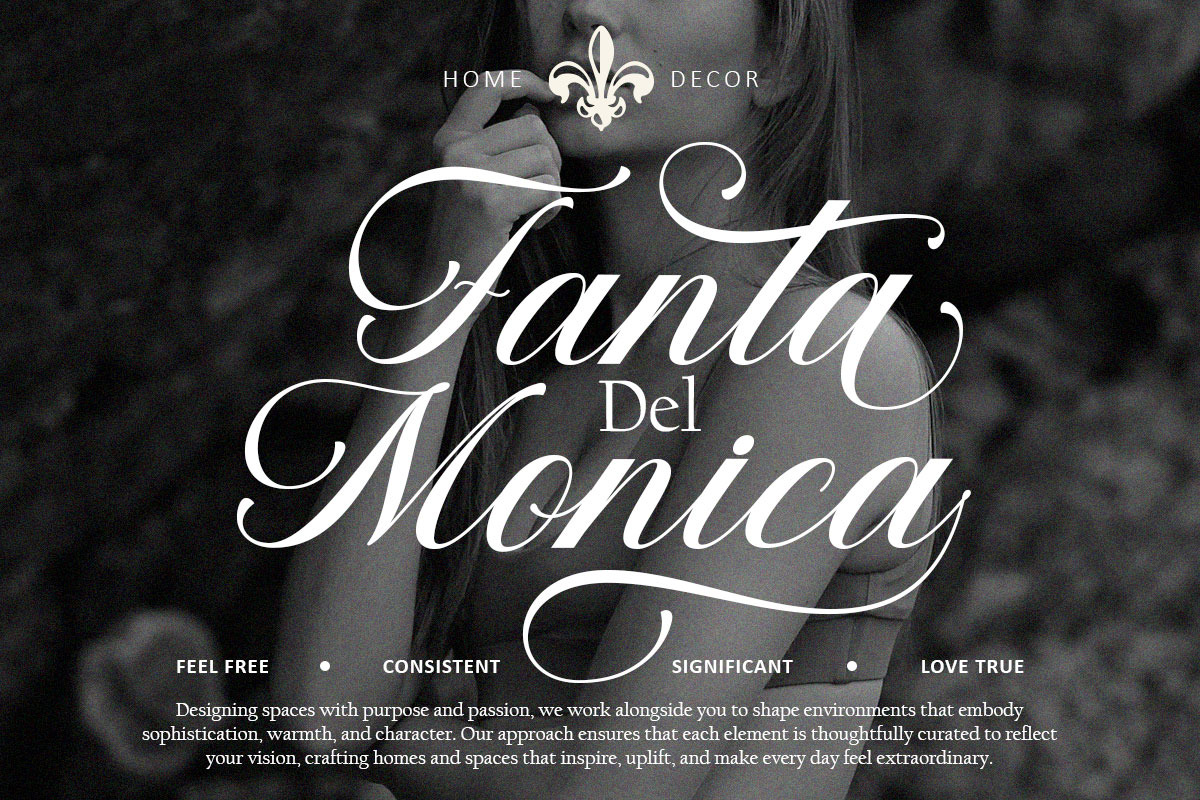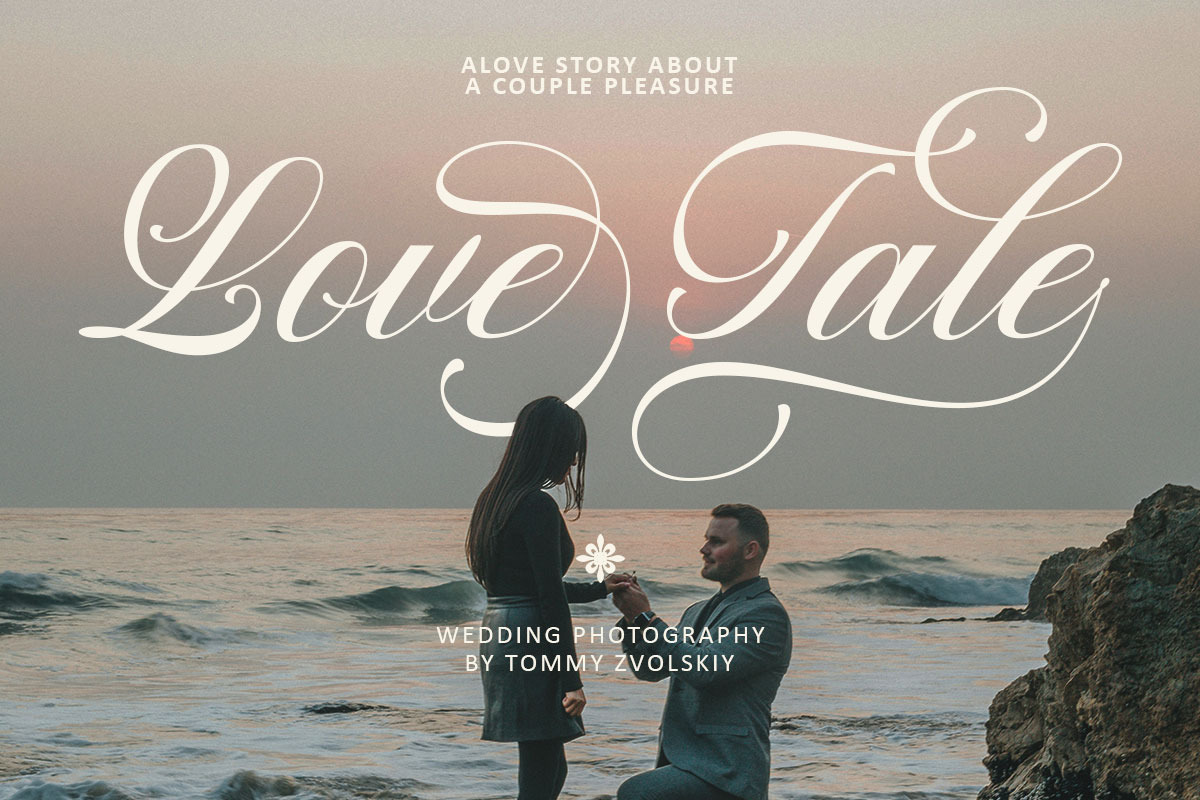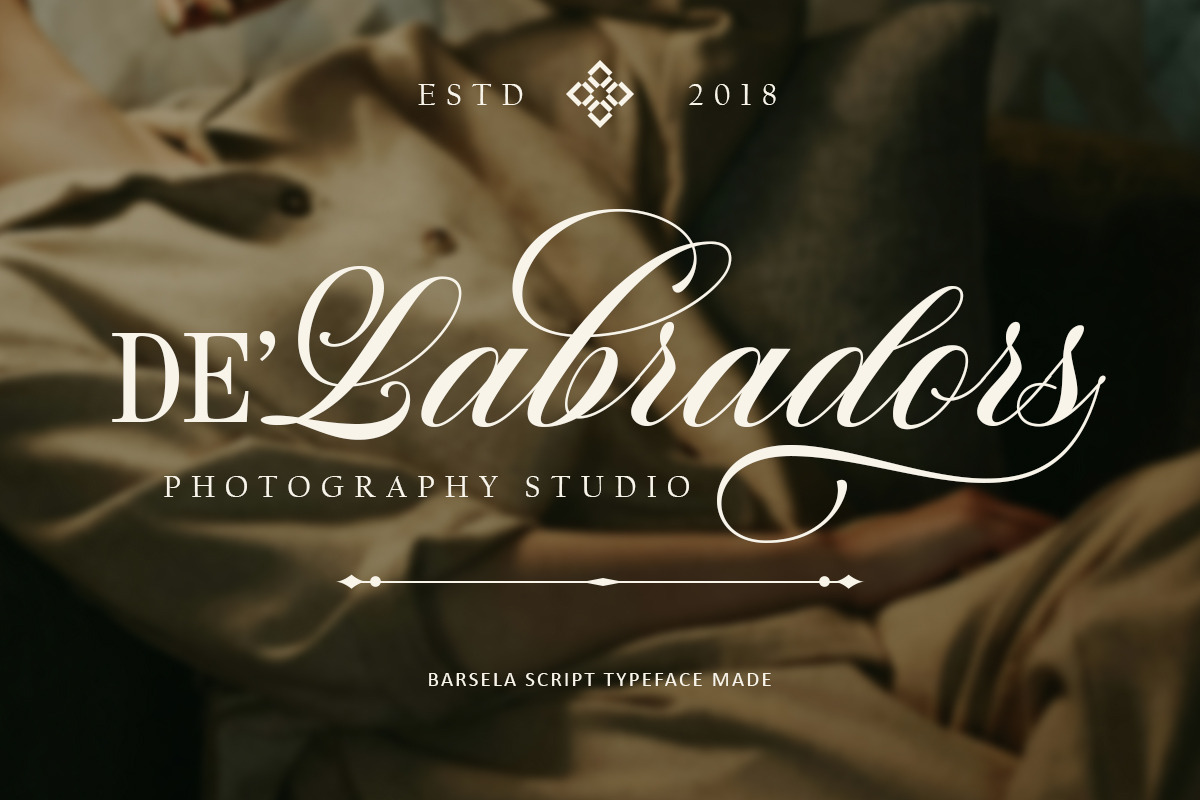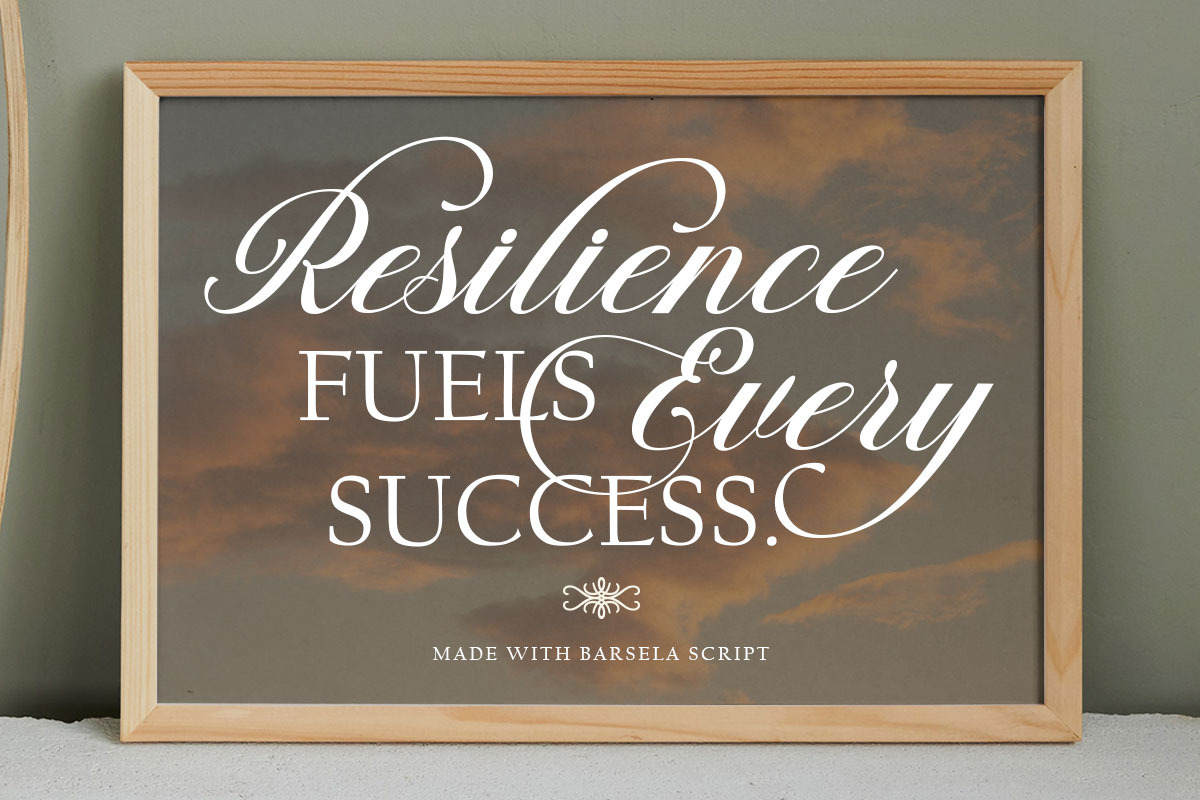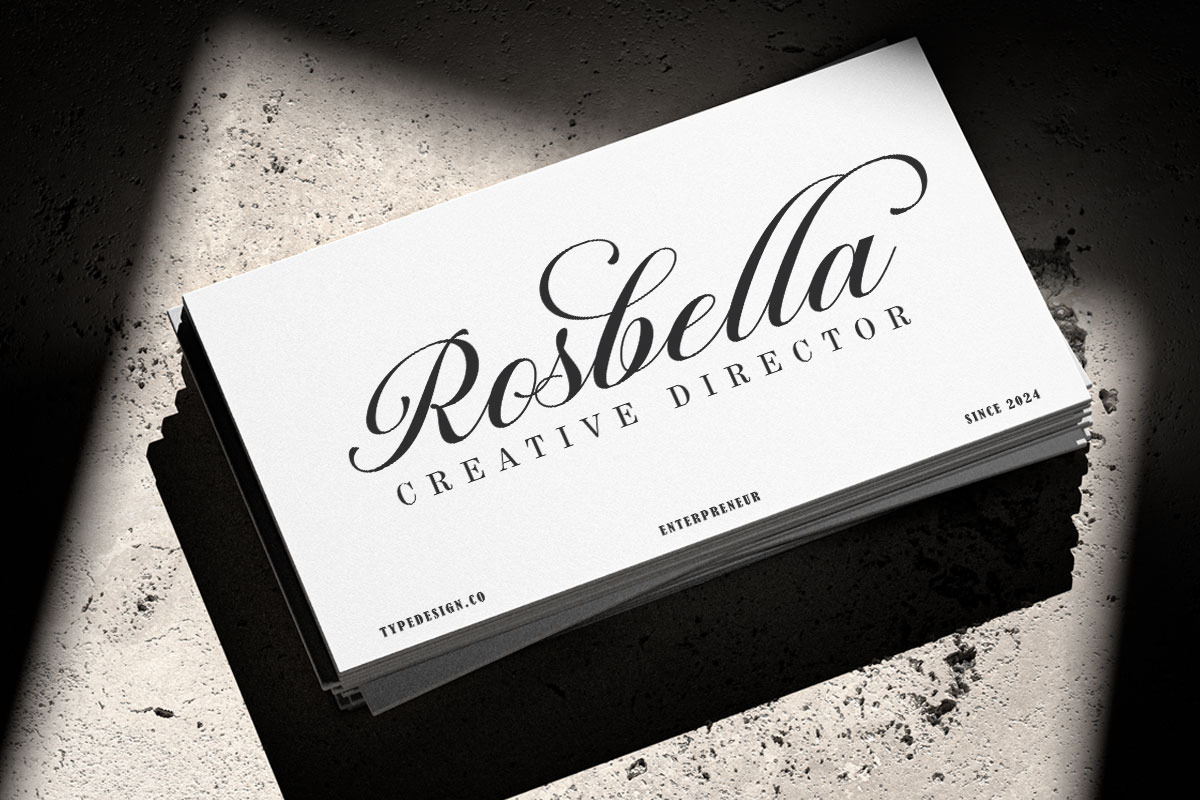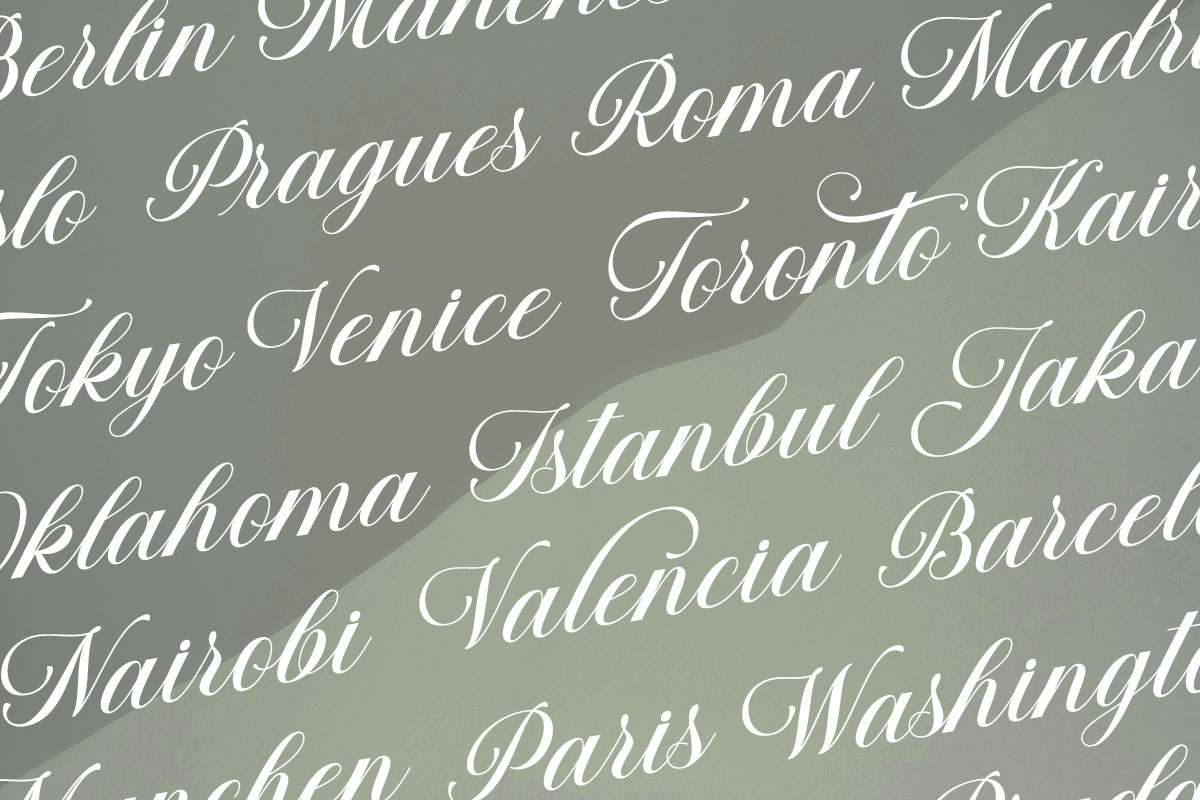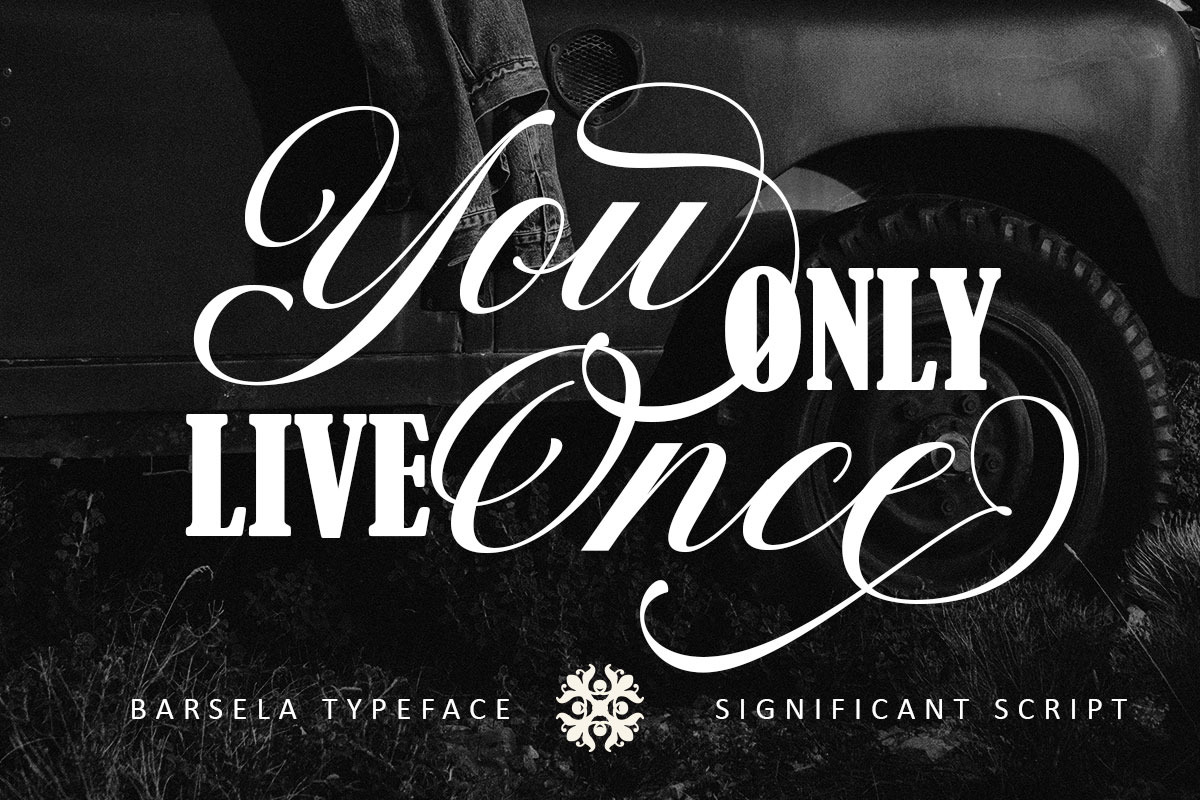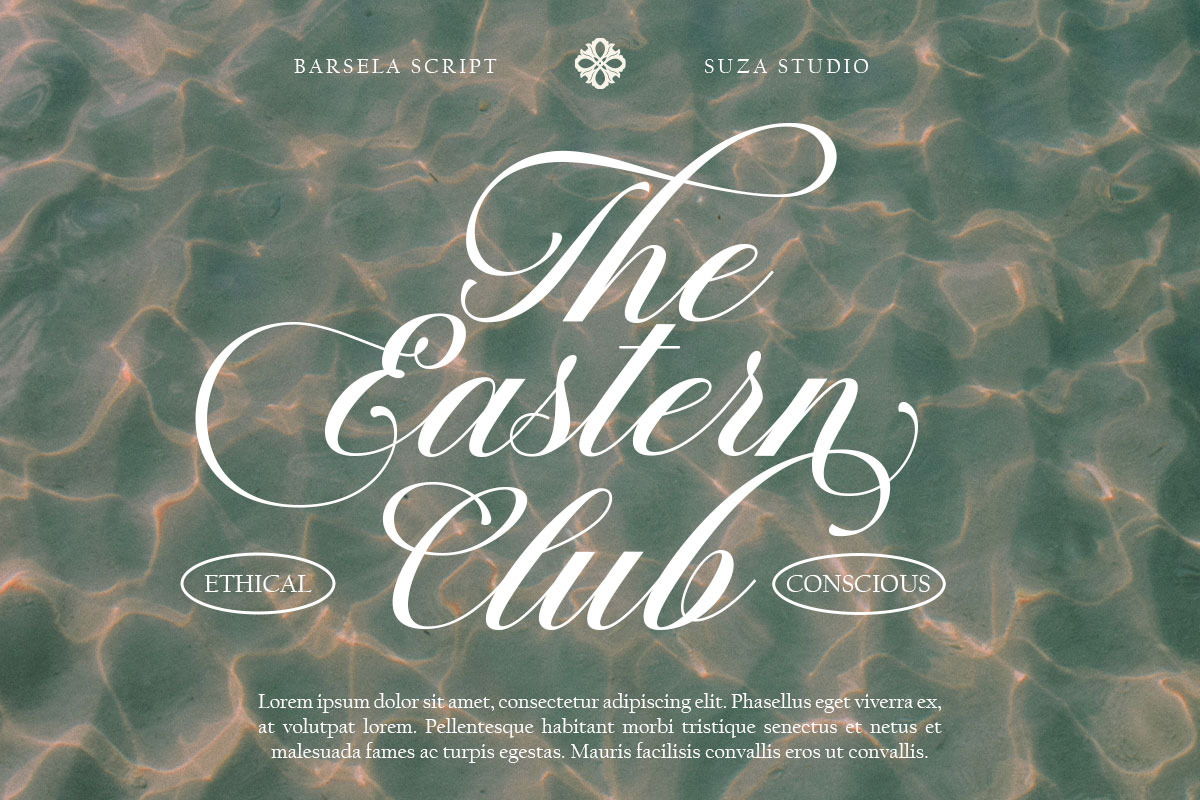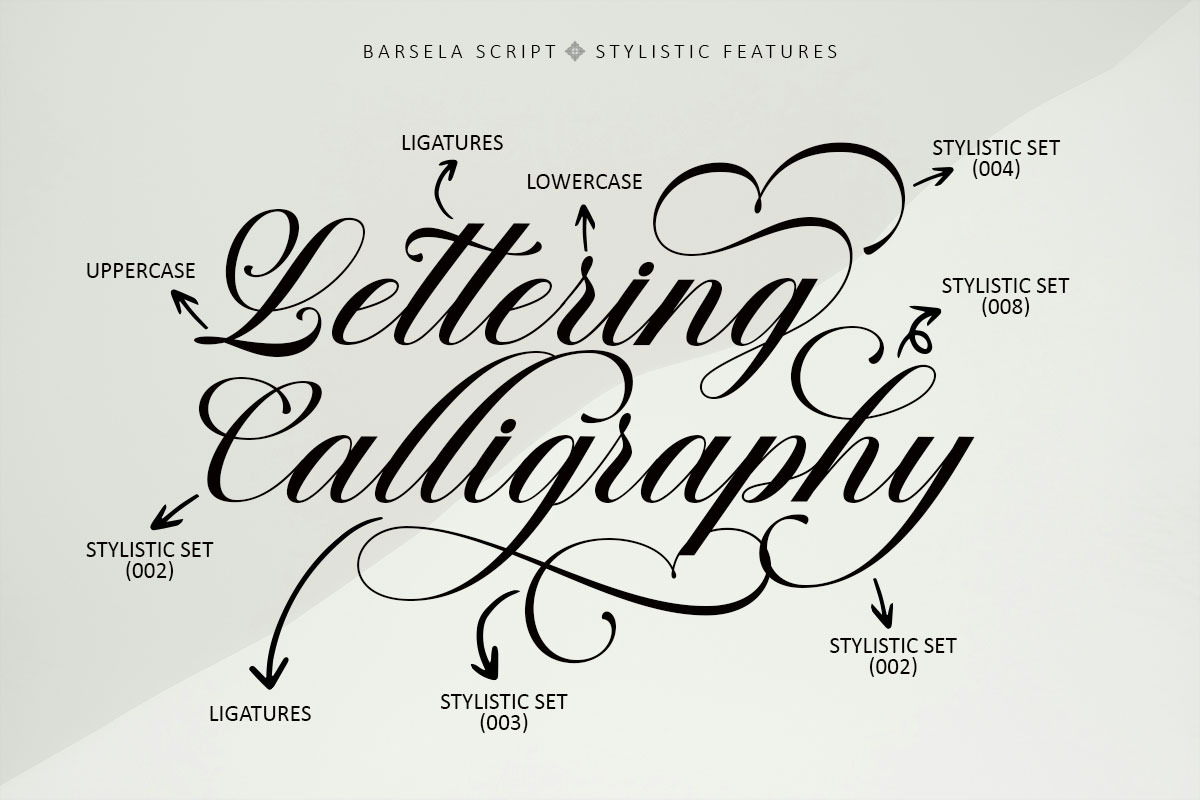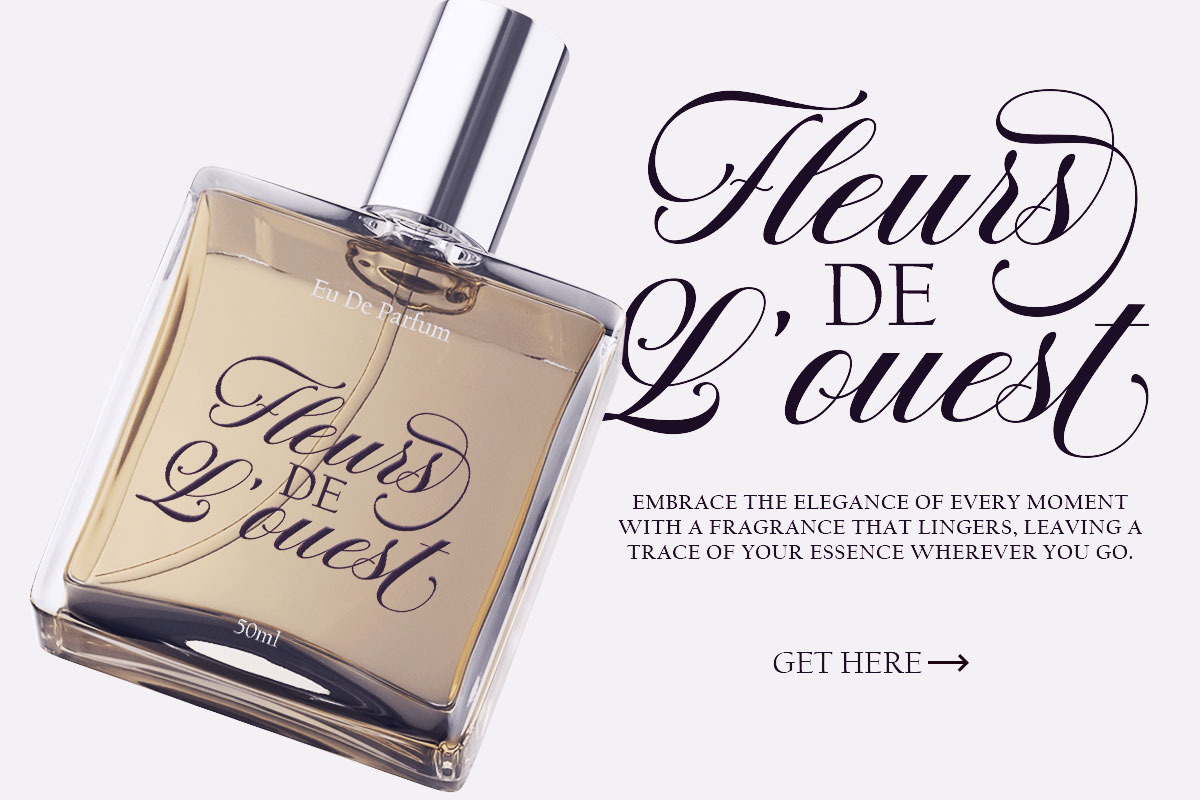
Barsela Calligraphy
Barsela Calligraphy is an elegantly styled calligraphy script font that comes with beautiful alternate characters. a mix of copper calligraphy with handlettering style. Designed to present an elegant style. Barsela Calligraphy is attractive because it is smooth, clean, feminine, sensual, glamorous, simple and very easy to read. The classic style is very suitable to be applied to all types of formal items such as invitations, labels, menus, logos, fashion, make up, stationery, letterpress, romantic novels, magazines, books, greeting/wedding cards, packaging, labels.
Barsela Calligraphy features 389+ glyphs and 170 alternate characters and ligatures, including multiple language support. With OpenType features with alternative styles, ligatures and swash characters that allow you to mix and match pairs of letters according to your design, and also a touch of ornamentation makes this font look elegant.